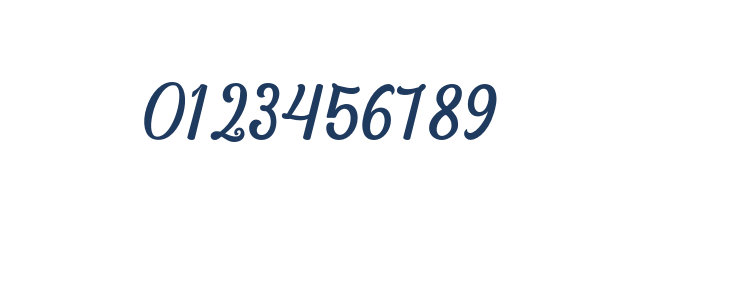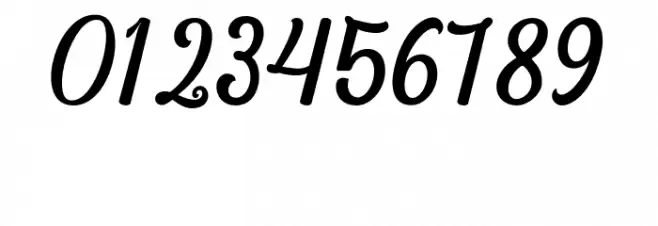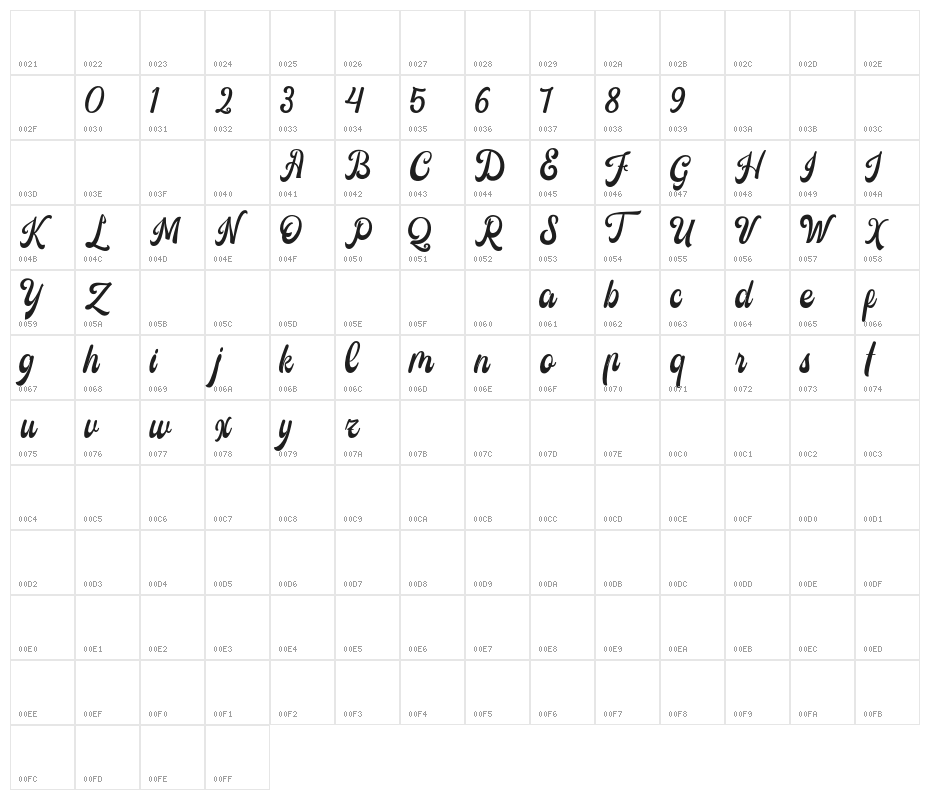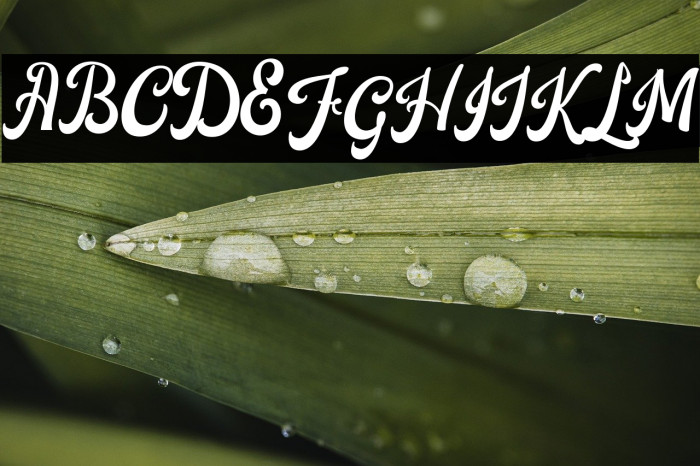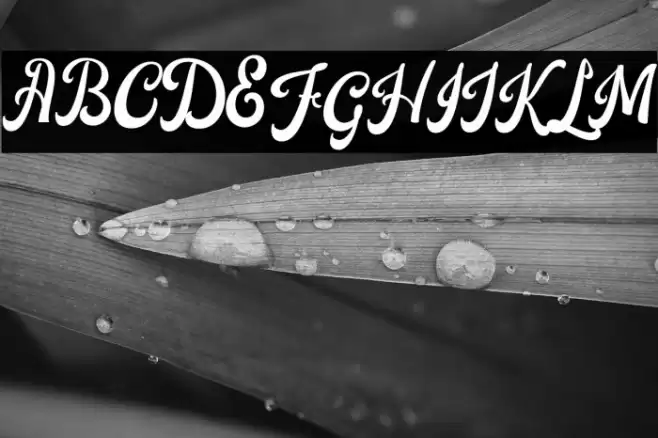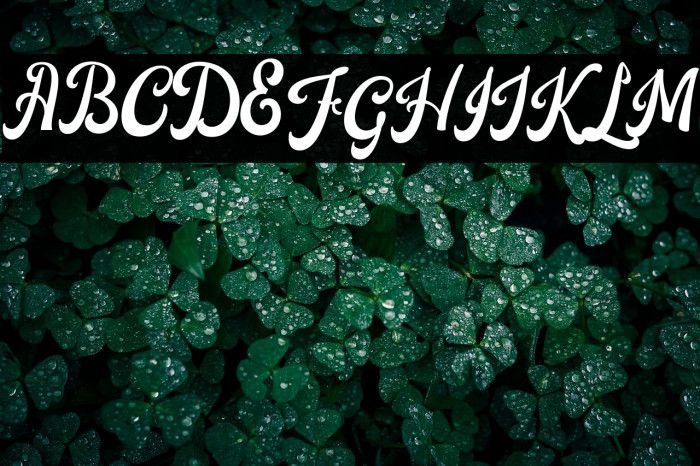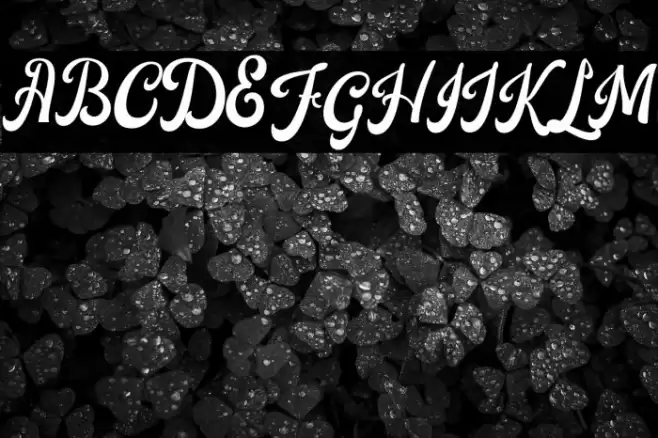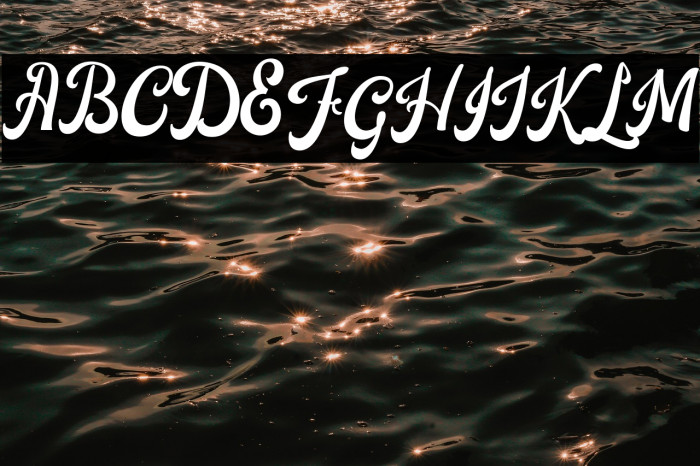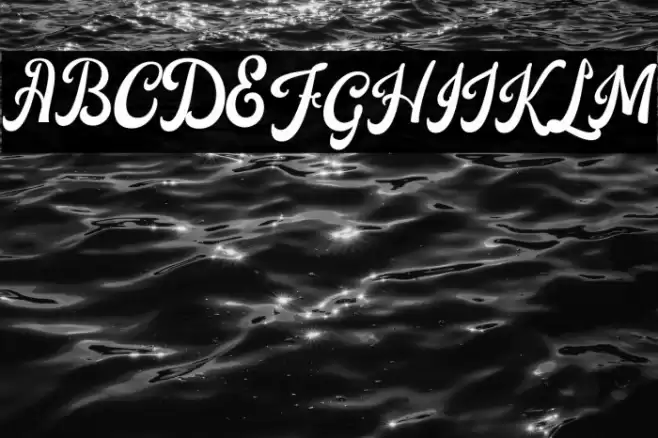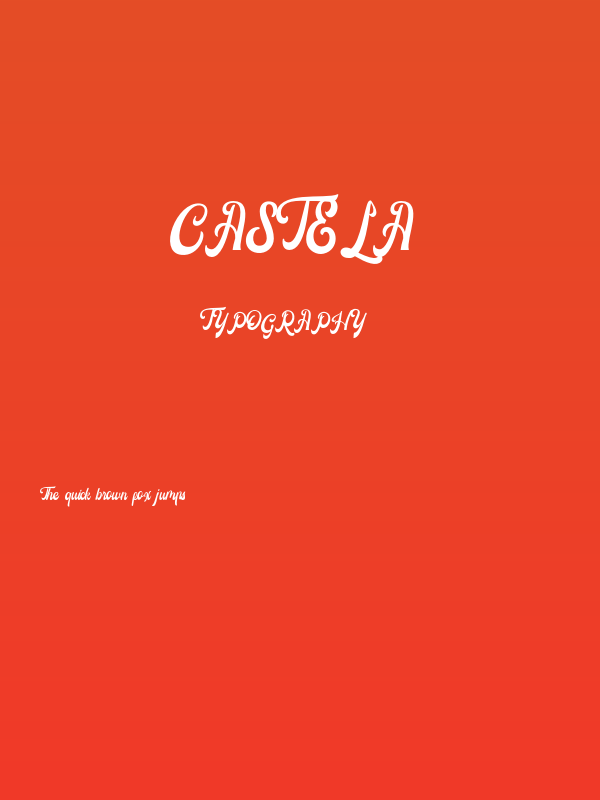
Castela Font
Castela Description
This font features a bold and flowing script style, characterized by its elegant and cursive letterforms. The uppercase letters are ornate, with sweeping curves and flourishes that give a sense of movement and grace. The lowercase letters maintain a consistent flow, with smooth connections between each character, enhancing its cursive nature. The numerals are distinct and maintain the script style, ensuring a cohesive look across all characters. This font exudes a sense of sophistication and is ideal for projects that require a touch of elegance and flair.
| Proposed Projects | Ideal for wedding invitations, elegant branding, greeting cards, and decorative signage. |